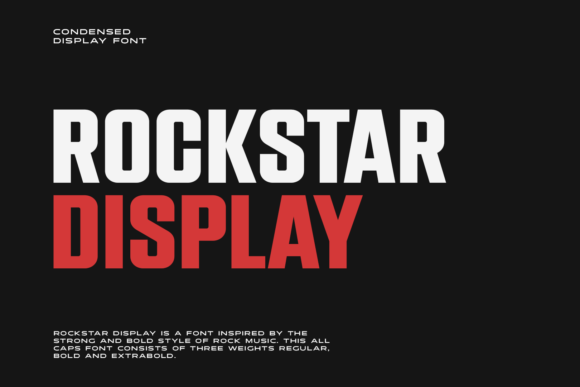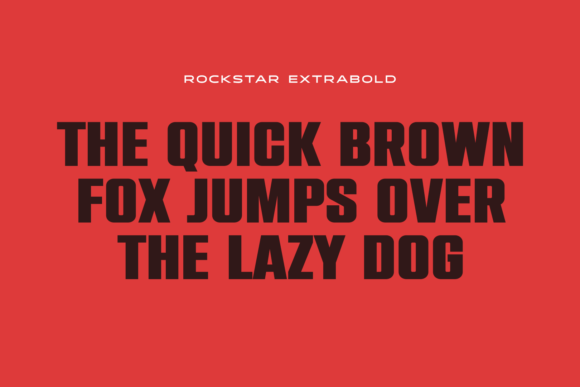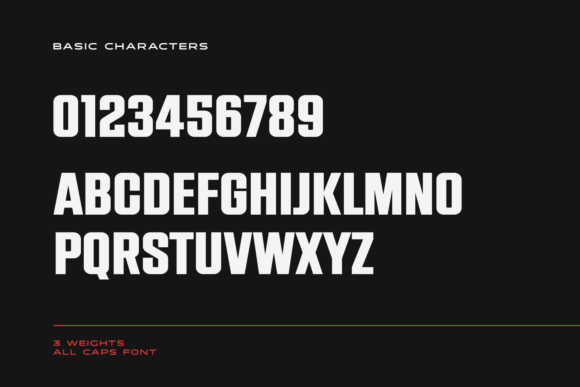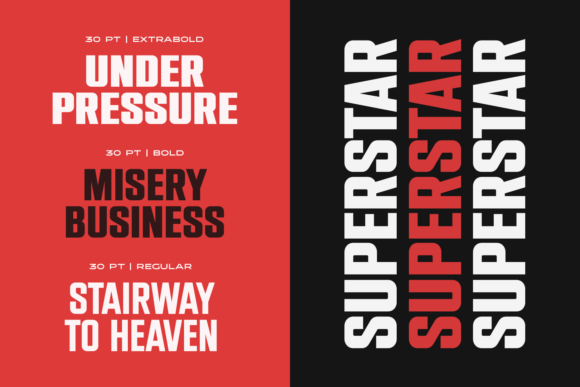
Rockstar Font
About the Rockstar Font
Get ready to be inspired by Rockstar Font, a fresh and dynamic typeface for modern creators. Rockstar is a cool, bold and thick lettered display font. It is ideal for writing web designs, business cards, or pretty much anything else that requires a futuristic touch.
Rockstar excels in headlines, logos, and short impactful phrases where its bold, thick letterforms command attention. It’s perfect for projects needing a strong, modern, and slightly rebellious feel—think edgy tech startups, music festivals, or bold product packaging. Avoid using it for body text or lengthy passages; its weight makes it unsuitable for comfortable reading at smaller sizes.
Pair Rockstar with a clean, geometric sans-serif like Futura or a more neutral serif like Garamond for a balanced design. The contrast enhances readability while maintaining a cohesive style. For a more playful feel, a handwritten script font could work, but choose one with a similar level of boldness to avoid clashing.
Its core personality is bold and assertive, conveying power and confidence. This makes it a strong choice for brands that project a similar image, but less suitable for contexts requiring subtlety or elegance.
Rockstar Font Usage Examples
Rockstar Font Example